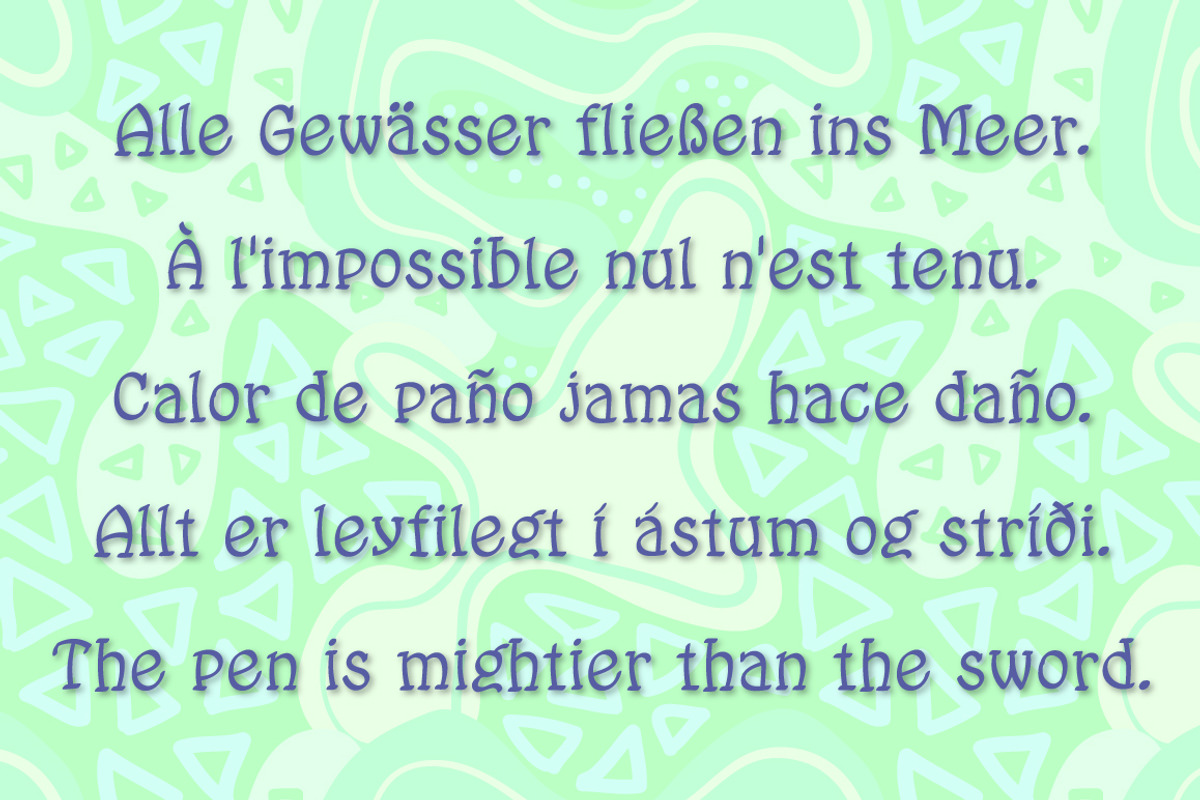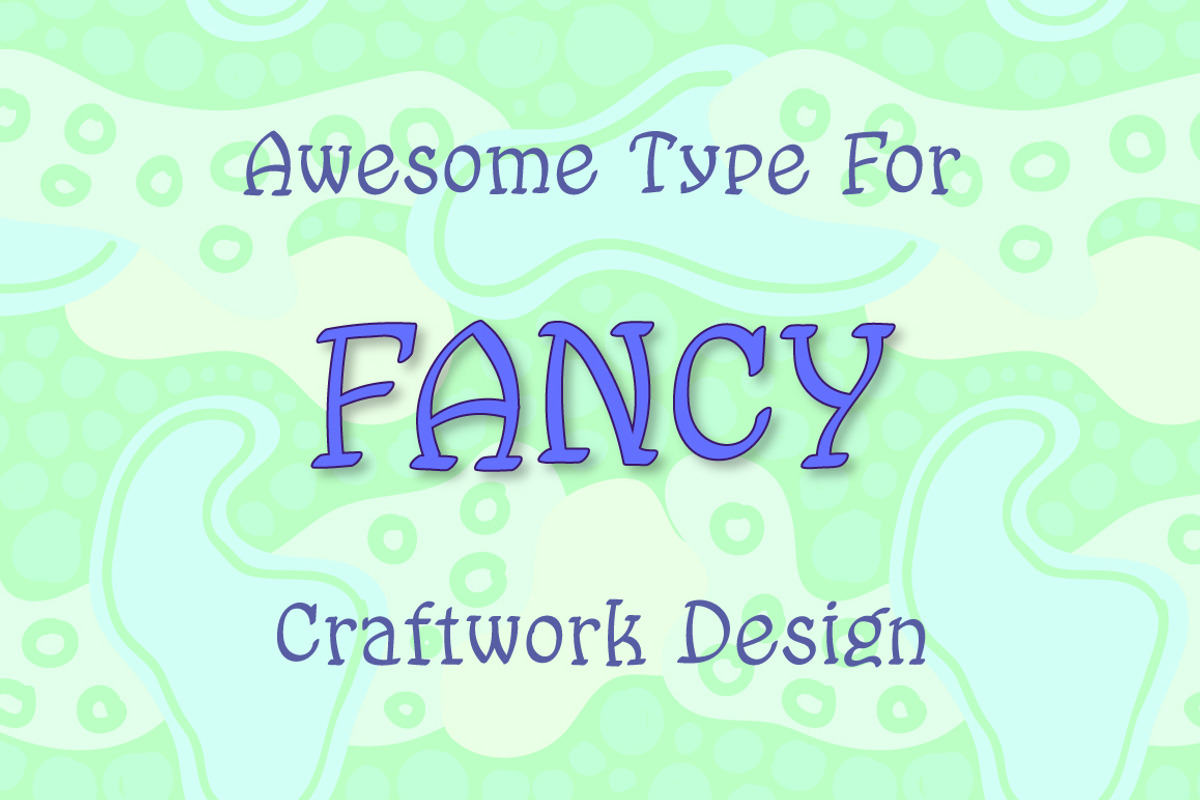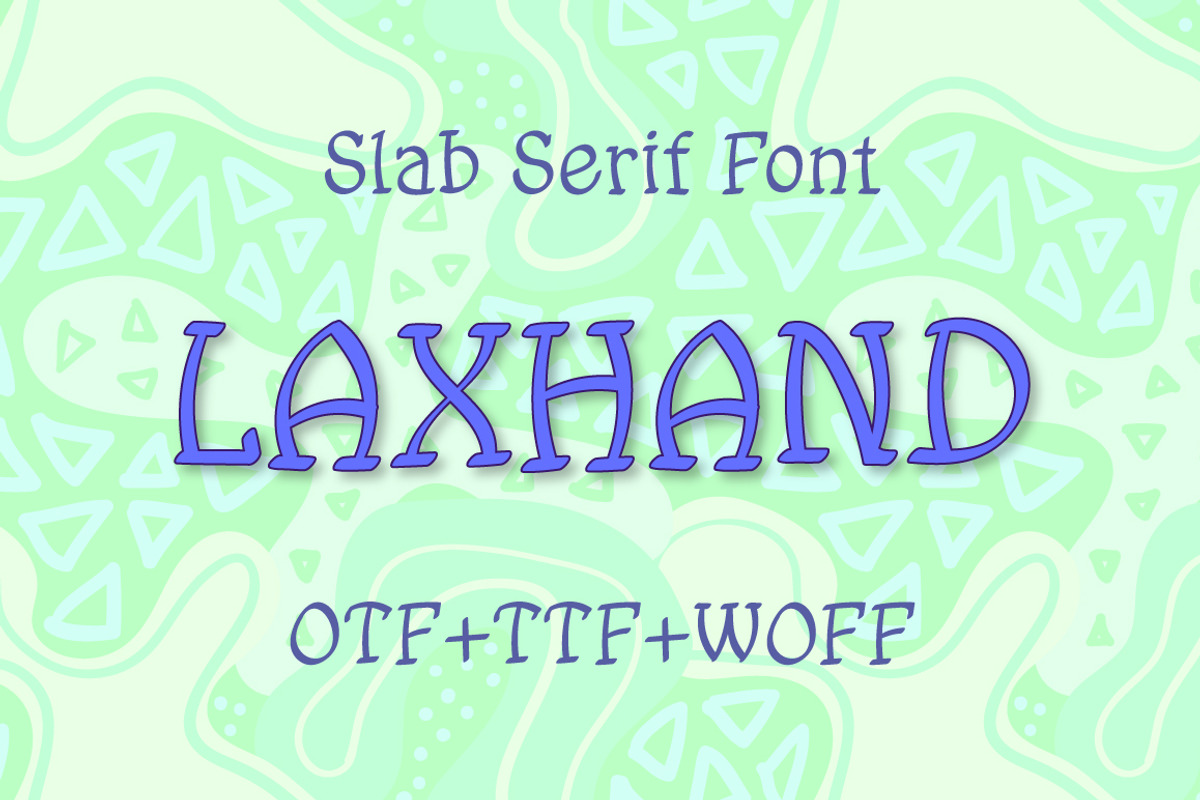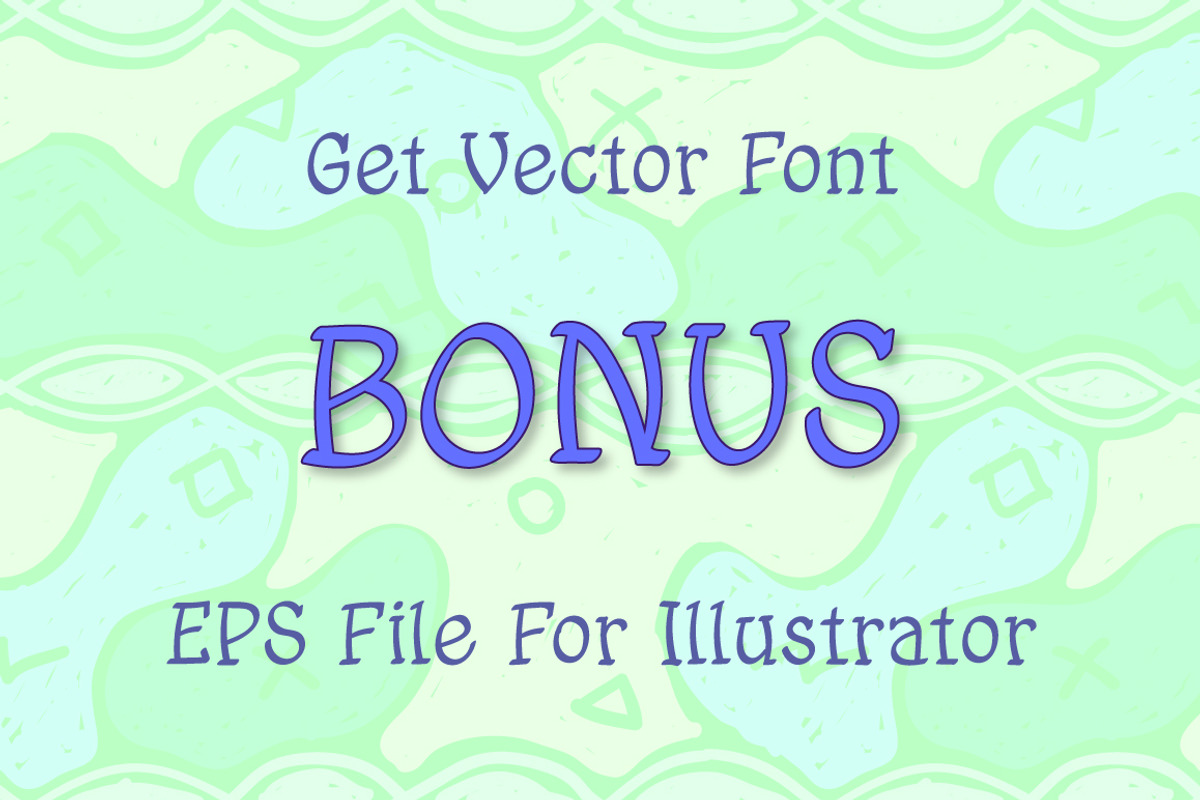
Laxhand slab serif font
If you are looking for a handwritten slab serif font for labels, covers, posters and other design projects, then this type is probably for you. Laxhand is a multilingual handwritten typeface with uppercase and lowercase letters, numbers and punctuation. It can be used to write inscriptions on the labels or packaging of fancy craftwork design. In this case you will receive otf, ttf, woff fonts. And as a bonus there is a vector eps file for illustrator.
Major alphabets: French, German, Icelandic, Spanish. Symbol sets: Punctuation, Mathematics, Currency.